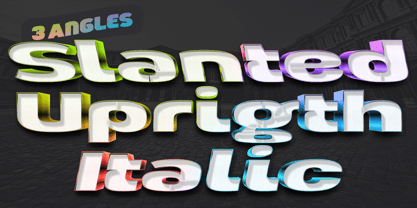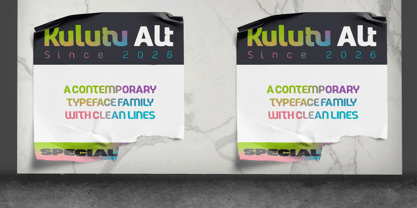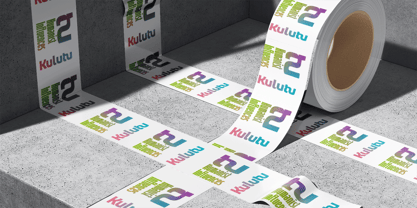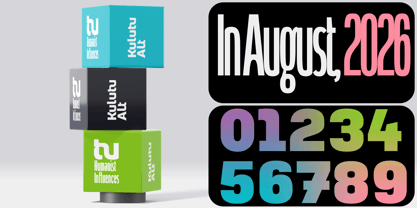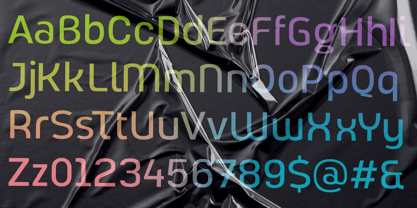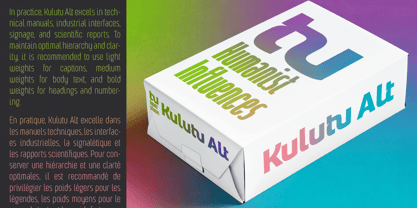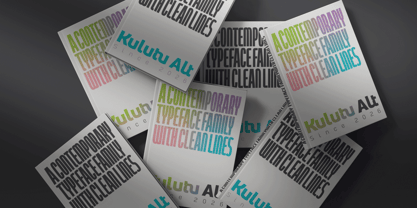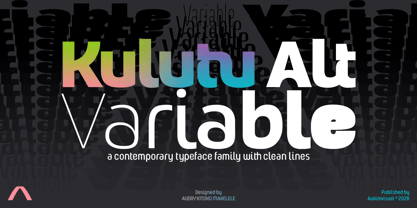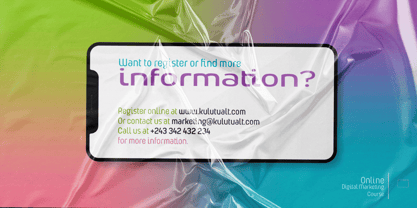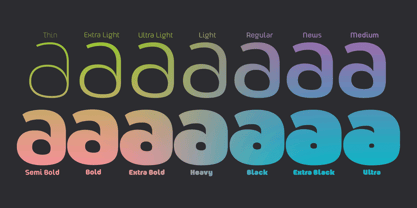
Kulutu Alt Variable
The Kulutu Alt Variable Font Family was designed by Audry Makelele and published by AukimVisuel. Kulutu Alt Variable contains 3 styles and family package options. More about this family
Kulutu Alt Variable is the dynamic evolution of the Kulutu Alt typeface, merging the expressive character of its alternative letterforms with the versatility of modern variable font technology. Rooted in an African-inspired design philosophy and a commitment to authenticity, this typeface allows for seamless interpolation across various typographic parameters while maintaining the distinctive identity and cultural richness that define the Kulutu family. This version transforms Kulutu Alt into a versatile creative tool, effortlessly adapting to diverse visual contexts. By integrating variable font technology, Kulutu Alt Variable provides designers with precise control over weight and stylistic expression within a single font file. Its refined alternative glyphs preserve their expressive silhouettes, reimagined curves, and handcrafted details inspired by African rhythms, patterns, and artistic traditions, facilitating fluid transitions that enhance both readability and visual impact. The result is a dynamic type system that harmonizes heritage, innovation, and technical performance. Designed for professional workflows, Kulutu Alt Variable excels in branding, editorial design, premium packaging, fashion, gastronomy, digital interfaces, cultural communication, and motion graphics. Its variable capabilities offer exceptional typographic flexibility, enabling responsive layouts, adaptive identities, and sophisticated visual hierarchies across both print and digital media. Whether paired with the core Kulutu family or used as a standalone display typeface, it empowers designers to create distinctive and highly customizable compositions. Positioned at the intersection of African cultural heritage and contemporary typographic innovation, Kulutu Alt Variable expands the expressive potential of the Kulutu ecosystem. It delivers a premium, elegant, and future-ready aesthetic, allowing creators to build bold visual identities with greater freedom, precision, and consistency. More than just a variable font, it is a powerful design system crafted for brands and creative projects seeking originality, authenticity, and enduring visual impact.